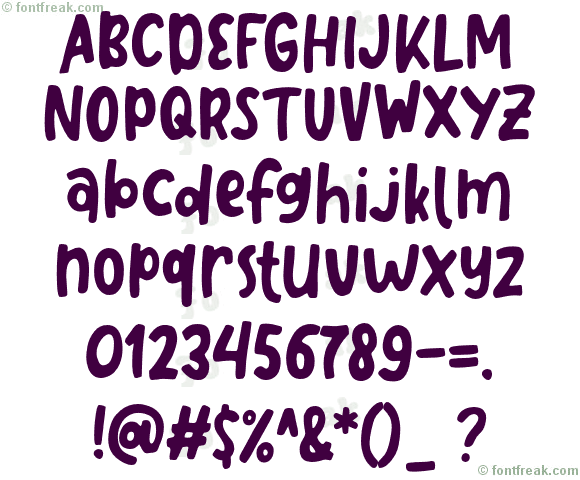
LikeSnacking
About LikeSnacking
The LikeSnacking font, designed by Situjuh Nazara, is a playful and inviting display font that captures attention with its unique charm. This font falls into the category of decorative typefaces, characterized by its rounded, soft edges and a handwritten feel. The stroke weight is consistent, giving it a friendly and approachable appearance, while the slight variations in letterforms enhance its whimsical nature. The spacing is generous, allowing each character to breathe and stand out, making it visually appealing for various applications.
LikeSnacking is particularly well-suited for use in creative projects that require a light-hearted touch. It shines in contexts such as children's book covers, where its playful aesthetic can engage young readers. Additionally, it is an excellent choice for social media graphics, helping content creators capture the attention of their audience with eye-catching posts. Restaurant menus can also benefit from its friendly vibe, inviting customers to explore the offerings in a casual and enjoyable manner. Moreover, this font can elevate branding for small businesses, especially those in the food and lifestyle sectors, by conveying a sense of fun and approachability.
What sets the LikeSnacking font apart is its versatility and ability to evoke a sense of joy and creativity. Its distinctive style invites playful interaction, making it a memorable choice for anyone looking to add a dash of character to their designs. Whether you're crafting a whimsical poster or a fun logo, LikeSnacking offers a delightful option that’s sure to resonate with audiences.